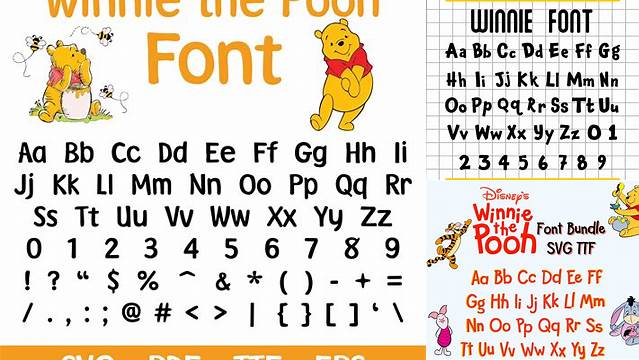
Winnie The Pooh Font SVG: Free Downloads & How To Use
Hey there, Pooh fans! Are you looking to add a touch of Hundred Acre Wood magic to your projects? Then you've come to the right place! In this article, we're diving deep into the world of Winnie the Pooh font SVG files. We'll explore where you can find them, how to use them, and all the creative ways you can incorporate these charming fonts into your designs. So grab your honey pot and let's get started!
What is a Winnie the Pooh Font SVG?
Let's kick things off with the basics, guys. A Winnie the Pooh font SVG is essentially a digital font file in the SVG (Scalable Vector Graphics) format. This format is awesome because it allows you to scale the font to any size without losing quality. Think about it – you can use it for tiny details on a card or blow it up for a huge banner, and it'll still look crisp and clear! The beauty of using a Winnie the Pooh font SVG is that it captures the playful and whimsical essence of the beloved characters and stories we all know and love. This means you get to infuse that adorable Pooh Bear charm into your crafts, designs, and more. It's a super versatile option for all sorts of projects, from personal keepsakes to party decorations. Plus, because it's a vector graphic, it's perfect for use with cutting machines like Cricut and Silhouette, making it ideal for DIY enthusiasts and professionals alike. So, if you're looking to add a little bit of Hundred Acre Wood magic to your next project, a Winnie the Pooh font SVG is definitely the way to go! Let's dive deeper into why this format is so special and how you can make the most of it.
Creative Project Ideas with Winnie the Pooh Font SVGs
Alright, let's get those creative juices flowing! Now that you know how to find and use Winnie the Pooh font SVGs, let's brainstorm some amazing project ideas. The possibilities are truly endless, but here are a few to get you started:
1. Personalized Nursery Decor
Imagine creating a beautiful name sign for a nursery using the Winnie the Pooh font. You could cut the letters out of wood or cardstock and paint them in soft, pastel colors. Add some adorable Pooh-themed embellishments, like little honey pots or bees, and you've got a one-of-a-kind piece of decor. You could also make wall decals with inspiring quotes from the books, like “Sometimes the smallest things take up the most room in your heart.” These quotes, written in the whimsical Winnie the Pooh font, would add a touch of sweetness to any nursery. Don't forget about creating custom bedding or blankets with the font! You could use fabric transfers to add names or initials to blankets and pillows, making them extra special. Personalized nursery decor is a thoughtful and heartfelt way to welcome a new baby into the world, and the Winnie the Pooh font SVG adds that perfect touch of nostalgia and charm. It's a project that parents will cherish for years to come, making it a wonderful gift idea as well.
2. Winnie the Pooh Party Invitations
Planning a Winnie the Pooh themed party? You've gotta have invitations that set the tone! Using a Winnie the Pooh font SVG, you can create invitations that are both adorable and professional-looking. Think about using the font for the party details, like the date, time, and location. You could even include a cute quote from the books, like “Any day spent with you is my favorite day.” To make the invitations extra special, consider adding some hand-drawn illustrations or clip art of the Winnie the Pooh characters. A simple drawing of Pooh Bear with a honey pot or Piglet holding a balloon can add a lot of charm. You can also play with different color schemes to match your party theme. Soft yellows, blues, and greens are classic Winnie the Pooh colors, but feel free to get creative and use your own palette. Don't forget about the envelopes! You can use the font to address the envelopes or even add a small Winnie the Pooh-themed design to the back. Handcrafted invitations show your guests that you've put a lot of thought and care into planning the party. They create excitement and anticipation, making your event even more memorable. Using a Winnie the Pooh font SVG ensures that your invitations capture the spirit of the beloved stories and characters, setting the stage for a truly magical celebration.
3. Custom T-Shirts and Apparel
Who wouldn't love a custom t-shirt featuring their favorite Winnie the Pooh quote or character's name? With a Winnie the Pooh font SVG, you can easily create personalized apparel for yourself, your kids, or as gifts. Think about designing shirts with phrases like “Oh, bother!” or “A hug is always the right size.” These sayings, written in the whimsical font, will bring a smile to anyone's face. You can also incorporate character silhouettes or drawings into your designs. A simple outline of Pooh Bear or Piglet can add a lot of visual interest. There are several ways to transfer your design onto a t-shirt. You can use iron-on transfer paper, which is a great option for home crafting. Simply print your design onto the transfer paper, iron it onto the shirt, and you're done! Another option is to use a cutting machine like a Cricut or Silhouette to cut out the design from heat transfer vinyl. This method is more durable and allows you to use multiple colors. Custom apparel is a fantastic way to express your love for Winnie the Pooh and showcase your creativity. Whether you're making shirts for a family vacation, a birthday party, or just for everyday wear, a Winnie the Pooh font SVG will help you create designs that are both charming and unique. Plus, they make wonderful gifts for the Pooh fans in your life!
4. Scrapbooking and Memory Keeping
If you're a scrapbooker or memory keeper, a Winnie the Pooh font SVG is a must-have! It's perfect for adding titles, captions, and journaling to your scrapbook pages. Imagine using the font to write the names and dates of special events, or to highlight memorable quotes from your photos. You could even create custom embellishments by cutting out letters or phrases from cardstock or patterned paper. The whimsical style of the Winnie the Pooh font adds a touch of playfulness and nostalgia to your scrapbook layouts. It's a great way to capture the essence of childhood memories and family moments. Think about using the font to create themed pages for baby showers, birthdays, or family vacations. You can also incorporate Winnie the Pooh-themed stickers, washi tape, and other embellishments to complement the font. Scrapbooking is a wonderful way to preserve your precious memories and tell your family's story. Using a Winnie the Pooh font SVG adds a personal and heartfelt touch to your pages, making them even more special. It's a fun and creative way to celebrate the people and moments that matter most to you.
5. Winnie the Pooh Themed Cards
Sending a handwritten card is always a thoughtful gesture, and a Winnie the Pooh-themed card is sure to bring a smile to anyone's face. With a Winnie the Pooh font SVG, you can create cards for all occasions, from birthdays and thank you notes to get-well wishes and congratulations. Think about using the font for the main message on the card, such as “Happy Birthday” or “Thank You.” You can also add a personal touch by writing a heartfelt message inside using the font. To make your cards extra special, consider adding some Winnie the Pooh-themed embellishments. You could use stamps, stickers, or hand-drawn illustrations of the characters. A simple drawing of Pooh Bear holding a balloon or Piglet offering a flower can add a lot of charm. You can also play with different card shapes and sizes. A square card or a folded card with a decorative edge can make your creation stand out. Don't forget about the envelope! You can use the font to address the envelope or add a small Winnie the Pooh-themed design to the back. Handmade cards are a wonderful way to show someone you care. They're personal, thoughtful, and a joy to create. Using a Winnie the Pooh font SVG ensures that your cards capture the spirit of the beloved stories and characters, making them even more meaningful.
Tips for Choosing the Right Winnie the Pooh Font SVG
Okay, guys, not all Winnie the Pooh font SVGs are created equal. To make sure you're getting the best font for your project, here are a few tips to keep in mind when you're choosing one:
1. Consider the Font Style
There are many different styles of Winnie the Pooh fonts out there. Some are more whimsical and playful, while others are more classic and elegant. Think about the overall tone and feel you want to achieve in your project. A playful font might be perfect for a children's birthday invitation, while a more classic font might be better suited for a scrapbook page about a family heirloom. Look for fonts that capture the essence of the Winnie the Pooh stories. The original books and illustrations have a distinct charm, so choose a font that reflects that. Fonts that are rounded, slightly uneven, and have a hand-drawn feel often work well. Consider the readability of the font as well. While a fancy or elaborate font might look beautiful, it's important that your text is easy to read. Choose a font that is clear and legible, especially if you're using it for important information like dates or names. Don't be afraid to experiment with different font styles until you find the perfect one for your project. You can even mix and match different fonts to create a unique and eye-catching design. Just make sure that the fonts you choose complement each other and don't clash. Ultimately, the best Winnie the Pooh font style is the one that best suits your project and your personal taste. So have fun exploring and discovering the perfect font for your needs!
2. Check the Font License
This is super important! Before you download and use a Winnie the Pooh font SVG, always check the font license. The license tells you how you're allowed to use the font. Some fonts are free for personal use only, which means you can use them for projects you're not selling. If you plan to use the font for commercial projects (like selling t-shirts or invitations), you'll need to find a font with a commercial license. Using a font without the proper license can get you into legal trouble, so it's always best to be safe. Look for the license information on the website where you downloaded the font. It's usually in a text file or on the font's download page. If you're not sure about the license, contact the font designer or the website where you found the font. They'll be able to clarify the terms of use for you. Free fonts often have more restrictions than paid fonts, so keep that in mind when you're making your choice. It's always a good idea to keep a record of the fonts you've downloaded and their licenses. This will help you stay organized and ensure that you're using the fonts legally. Don't let the legal stuff scare you away from using fonts! Just take a few minutes to check the license, and you'll be good to go. By respecting font licenses, you're supporting the designers who create these wonderful resources.
3. Ensure Scalability
Since we're talking about Winnie the Pooh font SVGs, scalability is key! You want a font that looks just as good at a small size as it does at a large size. SVG fonts are vector graphics, which means they can be scaled without losing quality. This is a huge advantage over raster fonts, which can become pixelated and blurry when you enlarge them. Before you download a font, try to preview it at different sizes. See how the letters look when they're tiny and when they're huge. Make sure the lines are crisp and clear, and that the font doesn't become distorted or unreadable at any size. If you're planning to use the font for cutting projects, scalability is even more important. You'll need to be able to cut the font at various sizes without any issues. Look for fonts that have clean, smooth lines and don't have too many intricate details. These fonts will be easier to cut and will produce better results. Scalability is also important if you're using the font for digital projects. You might need to resize the font for different screens or devices, so you want to make sure it looks great no matter what. By choosing a font that scales well, you'll be able to use it in a wide range of projects without any worries. So, always keep scalability in mind when you're selecting your Winnie the Pooh font SVG!
4. Check for Character Set
When you're choosing a Winnie the Pooh font SVG, take a peek at the character set. This means checking which letters, numbers, and symbols are included in the font. You'll want to make sure the font has all the characters you need for your project. For example, if you're writing a name that includes special characters like accented letters, you'll need a font that supports those characters. Most fonts include the basic alphabet, numbers, and punctuation marks. But some fonts have a more limited character set, so it's always good to double-check. You can usually view the character set on the font's download page or in the font management software on your computer. Look for a font that includes a variety of symbols and glyphs. These extra characters can add a lot of personality and flair to your designs. Some fonts even include alternate versions of letters, which can be fun to experiment with. If you're planning to use the font in multiple languages, make sure it supports the characters used in those languages. This is especially important if you're creating multilingual projects. By checking the character set before you download, you can avoid the disappointment of discovering that a font is missing a character you need. So, take a few minutes to review the character set and ensure that the font is a good fit for your project.
5. Consider the File Format
Okay, file format might sound a little techy, but it's important when you're dealing with Winnie the Pooh font SVGs! SVG stands for Scalable Vector Graphics, and it's the ideal format for fonts that you want to scale without losing quality. But sometimes, fonts come in other formats too, like TTF (TrueType Font) or OTF (OpenType Font). While these formats can work, they're not quite as flexible as SVG. TTF and OTF fonts are raster-based, which means they're made up of pixels. When you enlarge a raster font too much, it can become pixelated and blurry. SVG fonts, on the other hand, are vector-based, which means they're made up of mathematical equations. This allows them to be scaled infinitely without any loss of quality. If you have the choice, always go for a Winnie the Pooh font in SVG format. It'll give you the most flexibility and the best results, especially if you're planning to use the font for cutting projects. Sometimes, you might find a font that comes with both SVG and TTF/OTF versions. In this case, you can use the SVG version for your design software and the TTF/OTF version for your word processing programs. This gives you the best of both worlds! So, remember, when it comes to fonts, file format matters. SVG is the way to go for scalability and quality.
Common Mistakes to Avoid When Using Winnie the Pooh Font SVGs
Alright, let's talk about some common pitfalls you might encounter when using Winnie the Pooh font SVGs. Avoiding these mistakes will save you time and frustration, and help you create amazing projects.
1. Ignoring Font Licensing
We've touched on this before, but it's so crucial that it's worth repeating! Ignoring font licensing is a big no-no. As we discussed, every font comes with a license that dictates how you can use it. Using a font for commercial purposes without the proper license can lead to legal issues, and nobody wants that! Always, always check the font license before you start using it. If you're unsure about the license terms, it's better to err on the side of caution and contact the font designer or the website where you downloaded the font. They can provide clarification and help you avoid any potential problems. Think of it this way: font designers are artists, and they deserve to be compensated for their work. By respecting font licenses, you're supporting the creative community and ensuring that designers can continue to create awesome resources. So, take a few extra minutes to check the license, and you can use your Winnie the Pooh font SVG with peace of mind. It's a small step that makes a big difference!
2. Overusing the Font
Okay, we all love the Winnie the Pooh font, but it's possible to have too much of a good thing! Overusing the font can make your design look cluttered and overwhelming. It's important to use the font strategically and sparingly. Think about using the Winnie the Pooh font for titles, headings, or short phrases. For longer blocks of text, consider using a more simple and readable font. This will help balance your design and make it easier on the eyes. Try to limit the number of different fonts you use in a single project. Too many fonts can create a sense of visual chaos. Stick to two or three fonts that complement each other, and use them consistently throughout your design. Remember, the Winnie the Pooh font is whimsical and playful. It's best used to add a touch of charm and personality, rather than as the dominant font in your entire design. So, use it wisely and creatively, and let its unique character shine!
3. Neglecting Kerning and Spacing
Kerning and spacing might sound like technical terms, but they're essential for creating professional-looking designs with your Winnie the Pooh font SVG. Kerning refers to the space between individual letters, while spacing refers to the overall space between words and lines of text. Neglecting these aspects can make your text look awkward and difficult to read. Some fonts have built-in kerning, but you may still need to adjust it manually. Look for letters that are too close together or too far apart, and adjust the spacing as needed. Most design software programs have kerning tools that make this easy to do. Pay attention to the spacing between words and lines of text as well. If the words are too close together, they'll run into each other and become hard to read. If the lines of text are too close together, the design will look cramped. Experiment with different spacing options until you find a balance that looks good. Remember, the goal is to create text that is both visually appealing and easy to read. By paying attention to kerning and spacing, you can take your Winnie the Pooh font SVG designs to the next level!
4. Ignoring Readability
While the Winnie the Pooh font is super cute, it's not always the most readable font, especially in smaller sizes. Ignoring readability can make your message difficult to understand, which defeats the whole purpose of using text in your design. Before you finalize your design, take a step back and ask yourself: Can I easily read this? If the answer is no, you need to make some adjustments. Consider increasing the font size, especially if you're using the font for body text. A larger font size will make the letters more distinct and easier to read. Choose a contrasting color for your text. If your background is dark, use a light-colored font, and vice versa. This will help the text stand out and improve readability. Avoid using the Winnie the Pooh font for long blocks of text. It's best suited for short phrases, titles, or headings. For longer text, use a more simple and legible font. Remember, the most important thing is that your message is clear and easy to understand. By prioritizing readability, you'll ensure that your Winnie the Pooh font SVG designs are both charming and effective!
5. Not Testing Before Cutting
This is a big one for Cricut and Silhouette users! Before you send your Winnie the Pooh font SVG design to your cutting machine, always do a test cut. Not testing can lead to wasted materials and a lot of frustration. A test cut will help you ensure that your machine is cutting the font correctly. It'll also give you a chance to adjust your cut settings if needed. Start by cutting a small section of your design, rather than the entire thing. This will save you time and materials if something goes wrong. Examine the test cut closely. Are the lines clean and smooth? Are the letters cutting all the way through the material? If you're having problems, try adjusting your blade depth, pressure, or speed settings. Each material requires different cut settings, so it's important to find the right combination for your project. Testing is especially important when you're working with intricate fonts like the Winnie the Pooh font. These fonts have a lot of curves and details, which can be challenging for cutting machines. By testing first, you can avoid common issues like jagged edges or missed cuts. So, before you commit to cutting your entire design, take a few minutes to do a test cut. It'll save you headaches and help you create a flawless finished product!
Where to Learn More About Font Design and Usage
Want to become a font pro? There are tons of resources out there to help you learn more about font design and usage. Whether you're a beginner or an experienced designer, you can always expand your knowledge and skills. Here are a few places to start:
1. Online Courses and Tutorials
The internet is a goldmine of information, and there are tons of online courses and tutorials that can teach you about font design and usage. Websites like Skillshare, Udemy, and CreativeLive offer a wide range of courses on typography, font pairing, and font design software. These courses are often taught by industry professionals and cover everything from the basics of font anatomy to advanced font creation techniques. YouTube is another great resource for free tutorials. Many designers and typographers share their knowledge and tips on YouTube, covering topics like kerning, spacing, and font selection. Online courses and tutorials are a flexible and convenient way to learn at your own pace. You can access them from anywhere, and you can often rewatch the videos as many times as you need to. Whether you want to learn how to create your own fonts or simply improve your font selection skills, online courses and tutorials can help you achieve your goals.
2. Books on Typography
If you prefer a more traditional learning approach, there are many excellent books on typography that can deepen your understanding of fonts and their usage. Books like “The Elements of Typographic Style” by Robert Bringhurst and “Thinking with Type” by Ellen Lupton are considered classics in the field of typography. These books cover the history of typography, the principles of font design, and the art of font pairing. They also offer practical advice on how to use fonts effectively in your designs. Reading books on typography can give you a solid foundation in the fundamentals of font design and usage. You'll learn about the different types of fonts, the anatomy of letters, and the importance of kerning and spacing. Books are also a great resource for visual inspiration. Many typography books include examples of well-designed typography and layouts, which can spark your creativity and give you new ideas for your own projects.
3. Design Blogs and Websites
Stay up-to-date on the latest trends and tips in font design and usage by following design blogs and websites. Websites like Typewolf, I Love Typography, and Fonts in Use feature articles, interviews, and showcases of beautiful typography. These blogs and websites can inspire you, teach you new techniques, and keep you informed about the latest developments in the world of fonts. Design blogs and websites are also a great place to discover new fonts. Many websites feature font reviews and roundups, which can help you find the perfect font for your next project. You can also learn about the stories behind the fonts and the designers who created them. Following design blogs and websites is a great way to connect with the design community and stay inspired. You can leave comments on articles, participate in discussions, and share your own work. So, if you're passionate about fonts and typography, make sure to add some design blogs and websites to your reading list!
4. Font Design Communities and Forums
Connect with fellow font enthusiasts and learn from each other in font design communities and forums. Online communities like Typophile and FontStruct are great places to ask questions, share your work, and get feedback from other designers. These communities are filled with knowledgeable and passionate people who are eager to help you improve your font design skills. Font design communities and forums are also a great place to find inspiration. You can browse other people's work, participate in design challenges, and discover new styles and techniques. Many communities also host online events and workshops, which can provide you with valuable learning opportunities. Participating in font design communities and forums can help you build your network and make connections in the design industry. You can meet potential collaborators, clients, and mentors. So, if you're serious about font design, consider joining a community or forum and getting involved!
5. Software Documentation and Help Resources
Don't forget about the resources that come with your font design software! Most software programs have comprehensive documentation and help resources that can teach you how to use the software's font-related features. Whether you're using Adobe Illustrator, FontLab, or another font design program, the software documentation can help you master the tools and techniques you need to create your own fonts. The help resources often include tutorials, FAQs, and troubleshooting tips. If you're stuck on a particular problem, you can usually find the answer in the software documentation. Many software programs also have online communities and forums where you can ask questions and get help from other users. So, before you spend hours searching the internet for a solution, check the software documentation first. You might be surprised at how much information is available right at your fingertips!
Conclusion: Bringing the Magic of Pooh to Your Projects
So there you have it, folks! Everything you need to know about Winnie the Pooh font SVGs. From finding free downloads to using them in Cricut and Silhouette, we've covered it all. We've explored creative project ideas, shared tips for choosing the right font, and highlighted common mistakes to avoid. We've also pointed you in the direction of resources where you can learn more about font design and usage. Now it's your turn to bring the magic of Pooh to your projects! Whether you're creating personalized nursery decor, designing party invitations, or crafting custom t-shirts, a Winnie the Pooh font SVG is the perfect way to add a touch of whimsy and nostalgia. So go ahead, unleash your creativity and let your imagination soar! Remember, the most important thing is to have fun and express yourself. And who knows, you might just create something that makes someone's day a little brighter. Happy crafting, everyone!